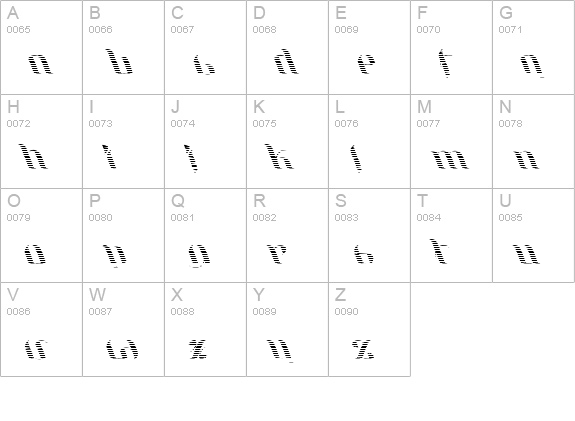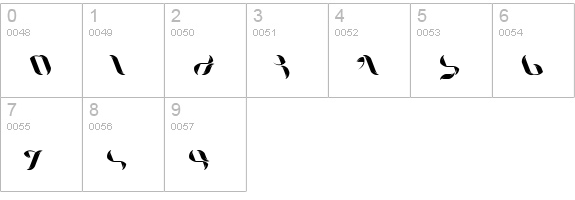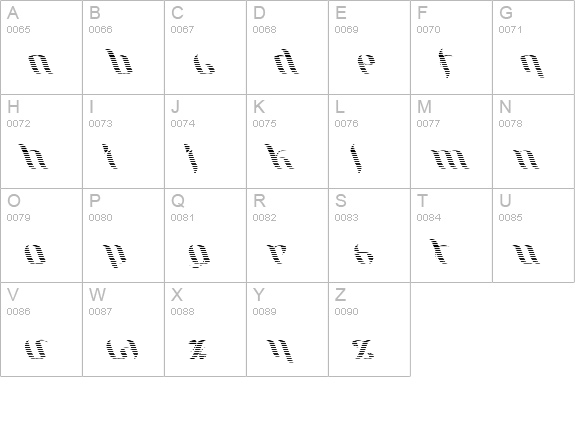
UniLeaf Italic Font Details
UniLeaf Italic is a distinctive, italic variant in the UniLeaf typeface family \xE2\x80\x94 well suited to design and typography projects.
Introducing UniLeaf Italic font, a stunning typeface that seamlessly combines elegance and modernity. With its sleek and slanted letterforms, UniLeaf Italic exudes sophistication and versatility, making it the perfect choice for a wide range of design projects. This exquisite font features beautiful curves and fine details, creating a graceful and refined aesthetic that captures attention effortlessly. Its distinctive italic style adds a touch of dynamic movement, lending a sense of energy and allure to any text. UniLeaf Italic font is freely available to download at FontsMarket.com, offering designers and creatives the opportunity to enhance their projects with this exceptional typeface at no cost. Whether you're designing a logo, crafting invitations, or creating captivating headlines, UniLeaf Italic will elevate your designs to new heights. Each carefully crafted letter in UniLeaf Italic font carries a unique charm, ensuring legibility and readability across various sizes and mediums. Its versatility allows it to seamlessly adapt to both digital and print applications, making it an invaluable asset for any design project. With its generous character set, UniLeaf Italic font offers a wide range of glyphs and alternate characters, allowing designers to easily customize and personalize their work. This font's flexibility enables the creation of eye-catching headlines, elegant branding materials, or even artistic compositions that push the boundaries of traditional typography. UniLeaf Italic font is the embodiment of elegance and creativity, offering designers a versatile tool to express their unique vision. Its free availability at FontsMarket.com ensures that everyone can access this exceptional typeface and elevate their design projects to new levels of excellence. Discover the beauty and sophistication of UniLeaf Italic font today and unlock a world of creative possibilities.